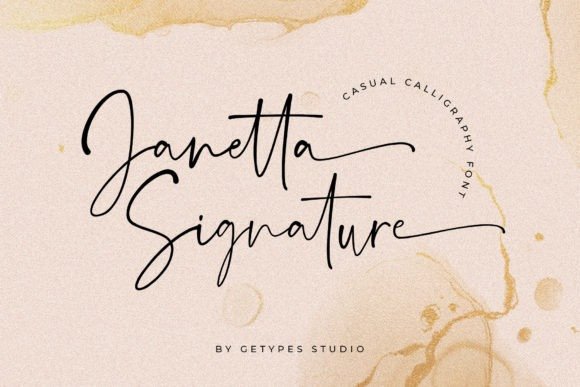
Janetta Signature Font
Introducing Janetta Signature Font – is a delicate, elegant, and flowing handwritten font. It has beautiful and well-balanced characters and as a result, it matches a wide pool of designs. It’s an enchanting handwritten font.
This versatile script font has a wide spectrum of applications ranging from greeting cards to headlines and is guaranteed to add a romantic feel to your next project. This font is PUA encoded which means you can access all of the beautiful glyphs and swashes with ease!